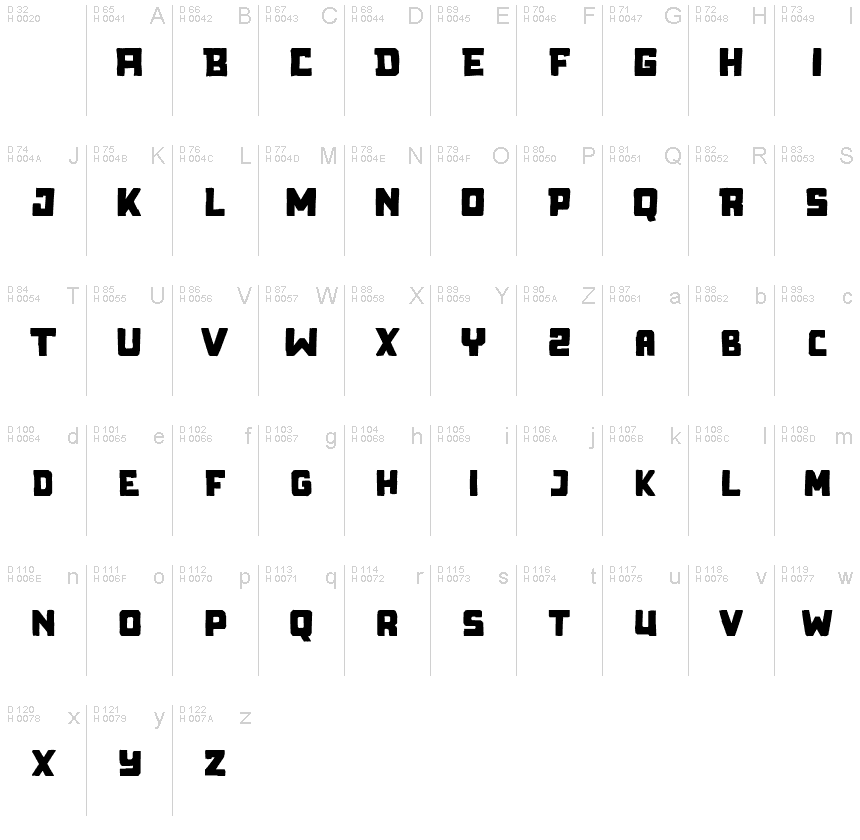
Fackers Free Regular
Fackers, a vibrant display font by Maulana Creative, brings an extra-bold cartoon style to your projects. Its semi-expanded width adds a playful touch while maintaining readability. Perfect for children's books, comic strips, and animated videos, this font injects life into your designs. From eye-catching logos to attention-grabbing headlines, Fackers is the ideal choice for any project that demands creativity and character. Stand out from the crowd with this lively typeface and let your imagination run wild with its unlimited possibilities.